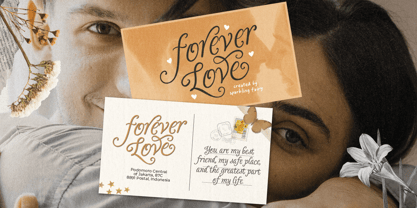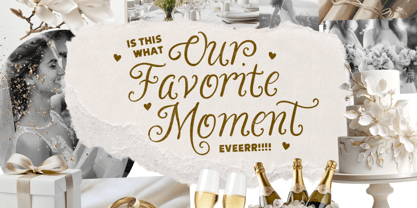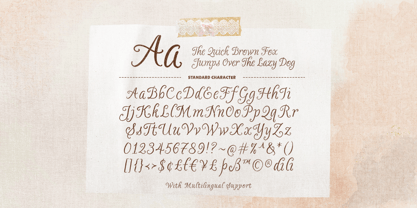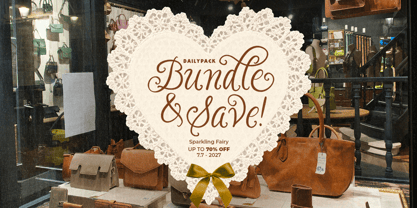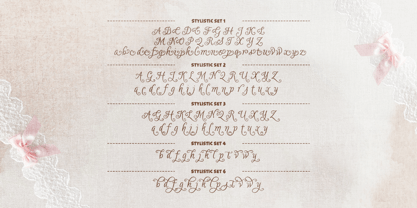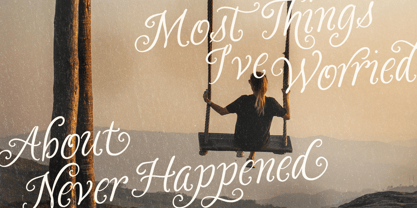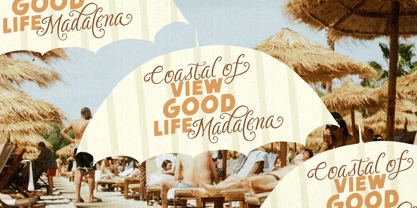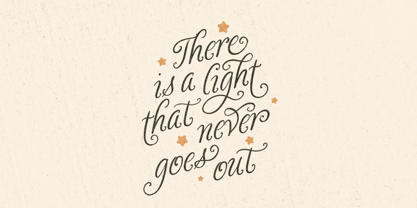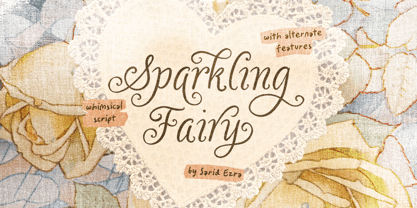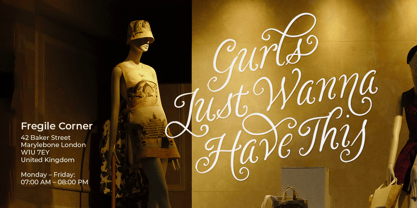
Sparkling Fairy
by Sarid Ezra
The Sparkling Fairy Font Family was designed by Sarid Ezra and published by Sarid Ezra. Sparkling Fairy contains 1 styles. More about this family
Sparkling Fairy is a whimsical and curly handwritten script that brings a magical and playful touch to every design. With a beautiful collection of stylish alternates and charming letterforms, you can easily create stunning and unique projects with a dreamy, enchanting feel. This versatile font is perfect for a wide range of creative purposes, including branding, wedding invitations, greeting cards, quotes, logotypes, packaging, social media designs, and any project that needs a touch of whimsy and magic. Sparkling Fairy is also multilingual, making it a great choice for designers and creatives working on projects for a wider audience.